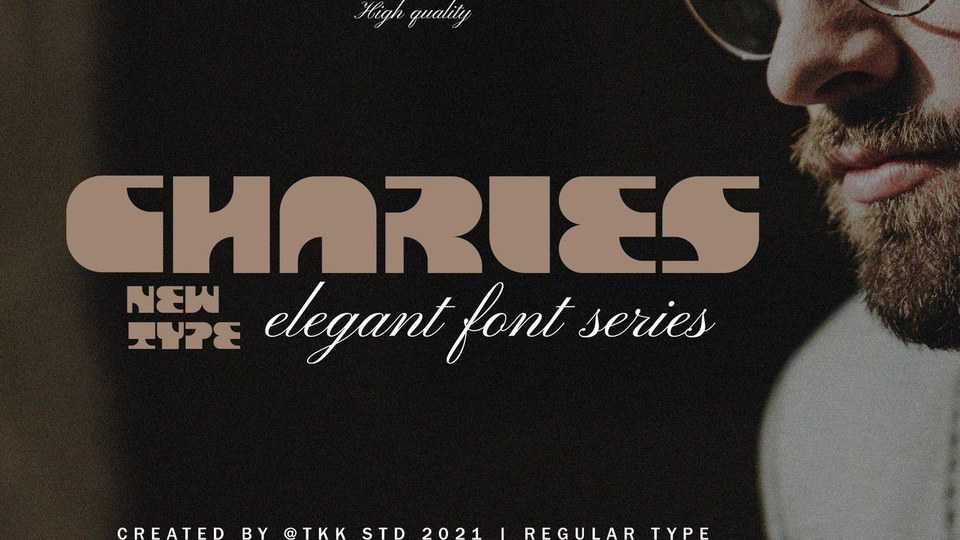
Download Charles font, a block letter typeface. Charles, a solid and elegant display font, portray the masculinity and strong individual in this competitive business world.